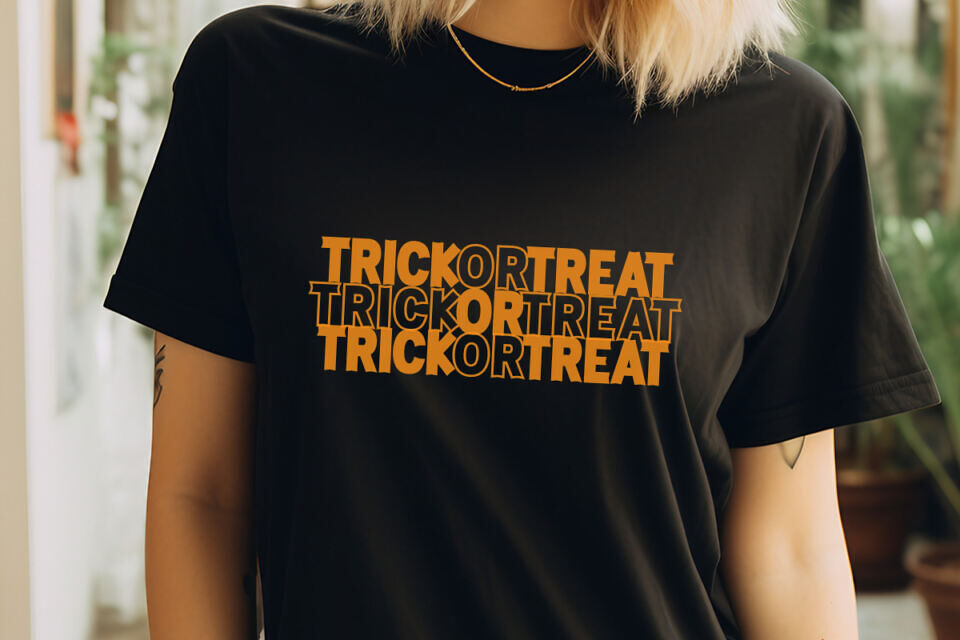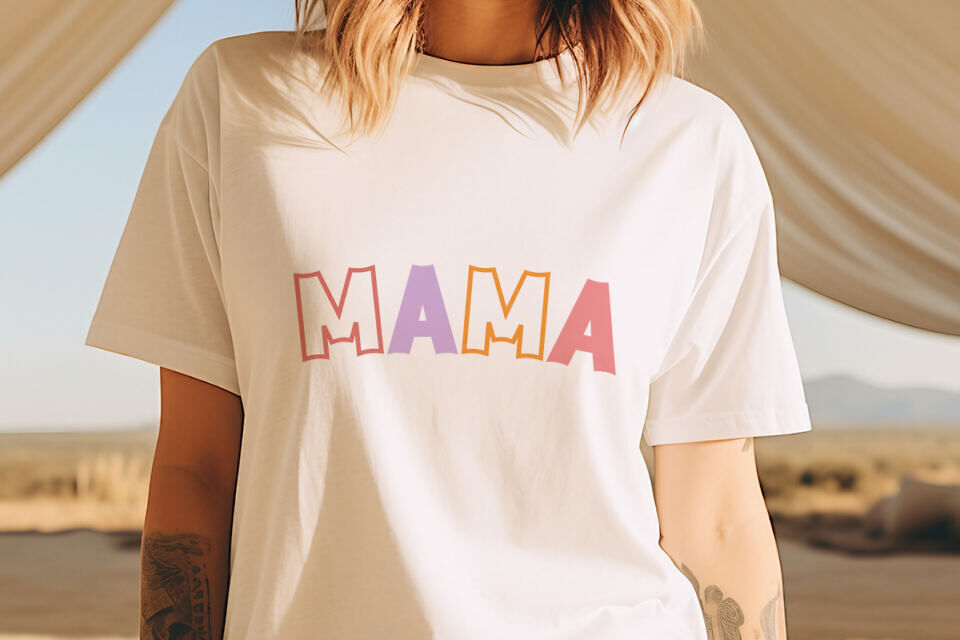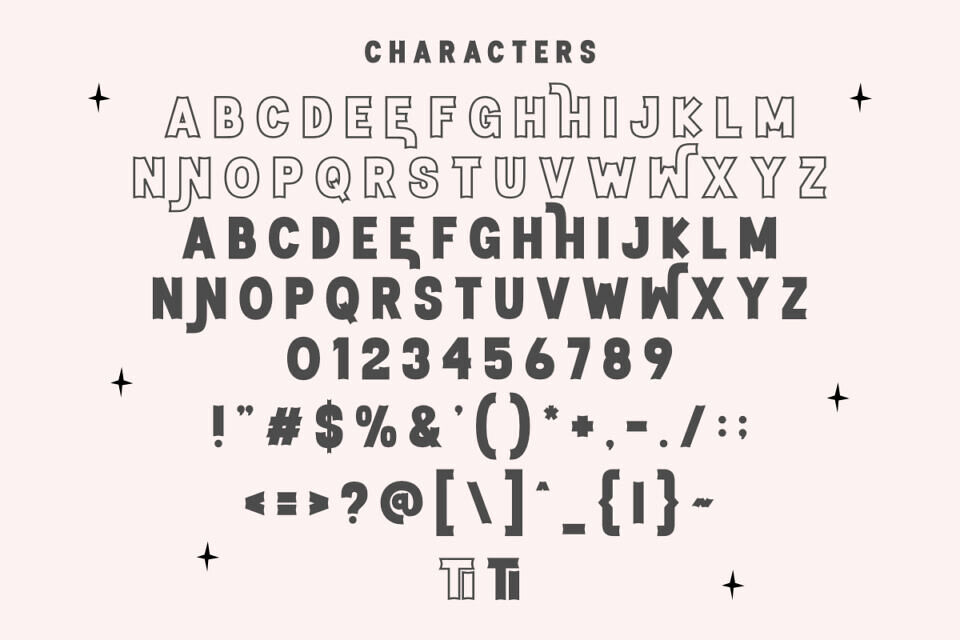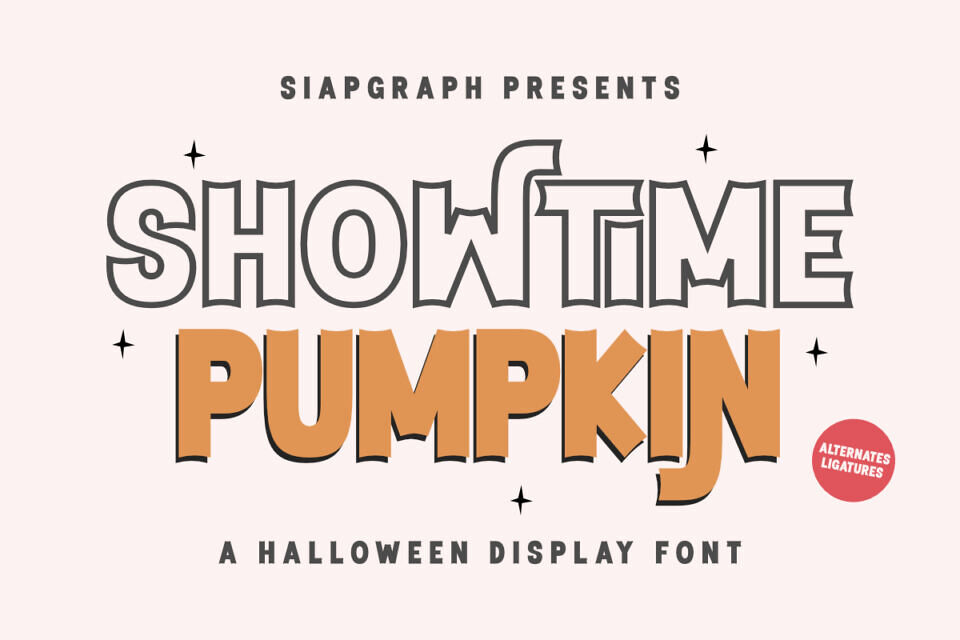
Showtime Pumpkin Font
Showtime Pumpkin is a fun and quirky Halloween display font with a perfect blend of clean outline and bold solid style. Featuring special alternates and ligatures, this font is ideal for POD products like Halloween shirts, tote bags, kids’ apparel, mugs, stickers, and party decorations.
Whether you’re a Cricut crafter, Etsy designer, or sublimation artist, Showtime Pumpkin is your go-to font for magical and playful Halloween projects.